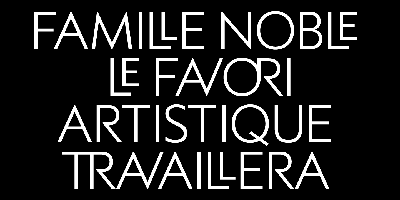
Lunar Orbiter Font Free Download is a futuristic, sleek typeface inspired by space exploration and sci-fi aesthetics. With its clean lines and slightly condensed letterforms, this font is perfect for technology branding, digital interfaces, posters, gaming graphics, and any project looking to convey innovation and a cutting-edge vibe.
Whether you’re working on a tech startup logo or designing immersive sci-fi visuals, Lunar Orbiter Font Free Download offers a modern and dynamic look that grabs attention. Its sharp edges and minimalist style give your designs a sense of forward-thinking sophistication.
Launch your design projects into the future with the sleek style of Lunar Orbiter Font Free Download. Try it today and make your typography truly out of this world.